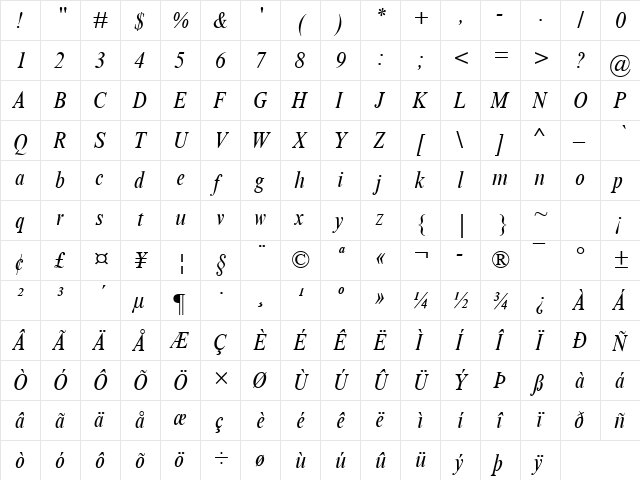
Times NR Condensed Italic
Design Context for Times NR Condensed Typeface
Times NR Condensed is a composed and adaptable typeface that performs quietly and consistently across a wide range of design contexts. The dynamic lean of this cut emphasises speed and emphasis in any layout. The condensed width makes it efficient for tight spaces without sacrificing legibility.
Pro Tip: Try Times NR Condensed for annotation and caption copy alongside an upright companion — the contrast in angle creates a dynamic but ordered typographic system.